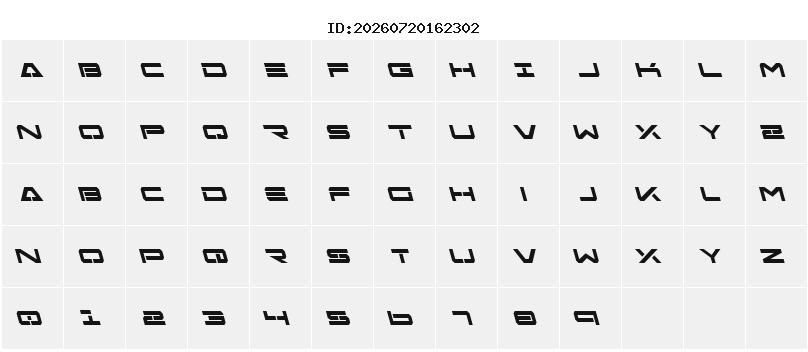
Free Agent Bold Leftalic Preview
• Font Name: Free Agent Bold Leftalic
• Font Style: Bold Leftalic
• Font ID: Free Agent Bold Leftalic
• Full Font Name: Free Agent Bold Leftalic
• PostScript Name: FreeAgentBoldLeftalic
• Designer: Dan Zadorozny
About Free Agent Bold Leftalic.ttf
Free Agent Bold Leftalic.ttf is a modern, elegant sans-serif font designed for ultimate readability and visual harmony. Perfect for branding, headlines, web design, and print materials.